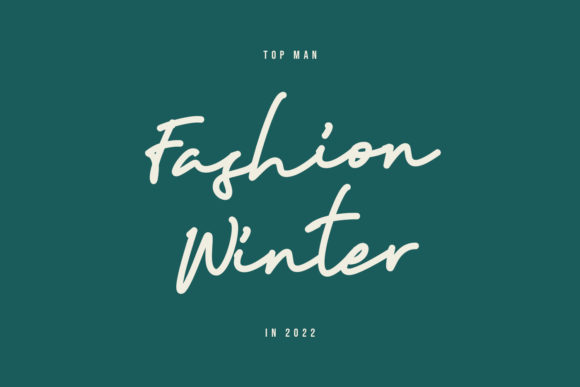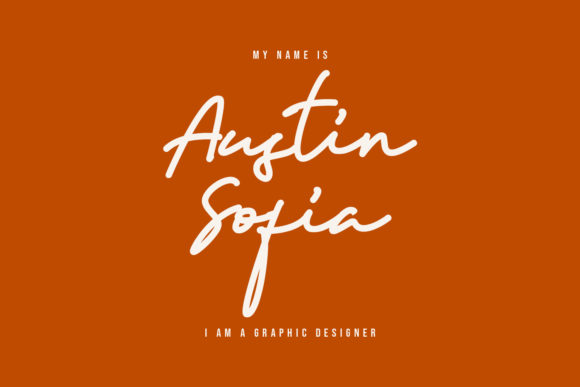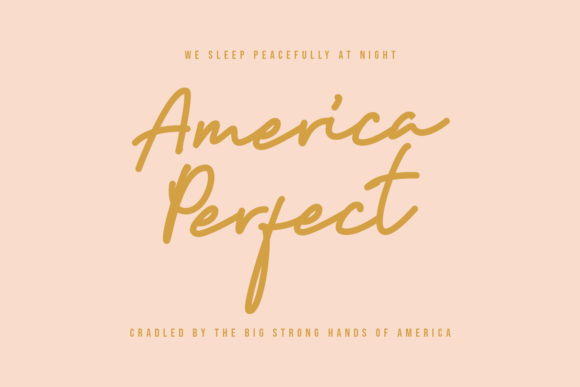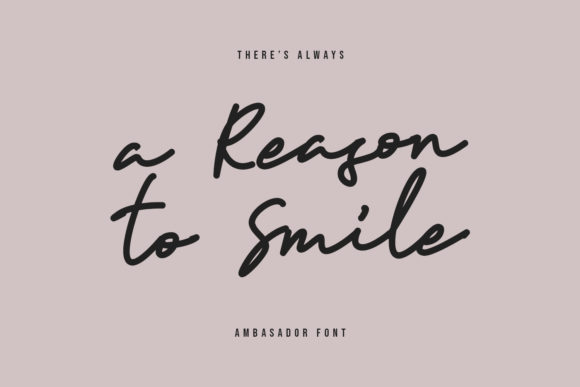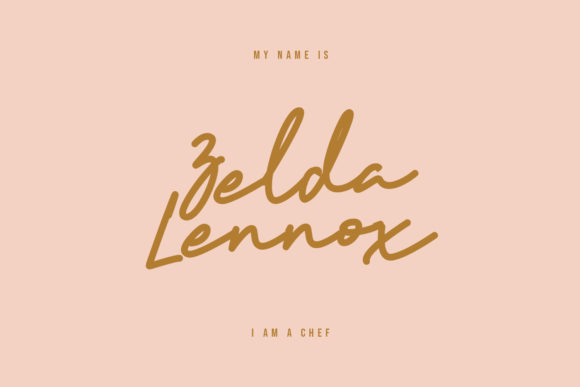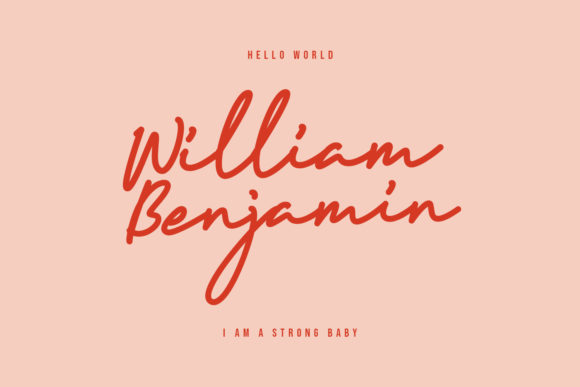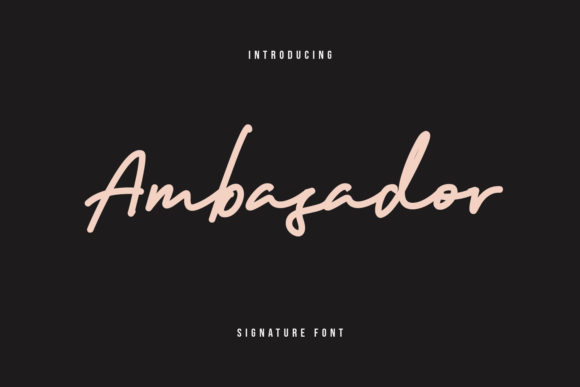
Introducing Ambasador Font: The Handwritten Gem for DIY Enthusiasts and Designers
Are you tired of using the same old fonts for your DIY projects and designs? Look no further! Ambasador Font is here to revolutionize the way you approach typography. This stunning handwritten font is the result of a unique pairing of a brush pen and pencil, giving it an endearing and authentic feel that’s sure to capture the hearts of designers and crafters alike.
The Story Behind Ambasador Font
Ambasador Font is more than just a font – it’s a work of art. Created with a combination of a brush pen and pencil, this font boasts a distinctive, handcrafted look that’s perfect for adding a personal touch to any project. The unique pairing of these two writing tools gives Ambasador Font its characteristic flair, making it stand out from the crowd.
What Makes Ambasador Font So Special?
- Authentic and Endearing: Ambasador Font’s handmade origins give it a genuine, down-to-earth feel that’s hard to replicate with digital fonts.
- Versatile: Whether you’re working on a DIY project, designing a logo, or creating a brand identity, Ambasador Font is the perfect choice.
- Unique: With its distinctive brush pen and pencil combination, Ambasador Font is sure to make your designs stand out from the crowd.
- Handwritten with Love: Every letter, every curve, and every line in Ambasador Font is carefully crafted with love and attention to detail.
Bringing DIY Projects to Life with Ambasador Font
Are you a crafter or DIY enthusiast looking for a font that will add a personal touch to your projects? Ambasador Font is the perfect choice. Whether you’re creating handmade cards, crafting custom signage, or designing your own home decor, this gorgeous handwritten font will bring your projects to life.
Imagine using Ambasador Font to:
- Create custom invitations for your next party or event
- Design a unique logo for your small business or brand
- Make handmade cards or gift tags for special occasions
- Personalize your home decor with custom signage or wall art
Tips for Using Ambasador Font in Your Designs
To get the most out of Ambasador Font, here are a few tips to keep in mind:
- Pair it with other fonts: Combine Ambasador Font with other fonts to create a unique and visually appealing design.
- Experiment with colors: Try out different colors and textures to add depth and interest to your designs.
- Play with sizes: Use Ambasador Font in different sizes to create visual hierarchy and emphasis.